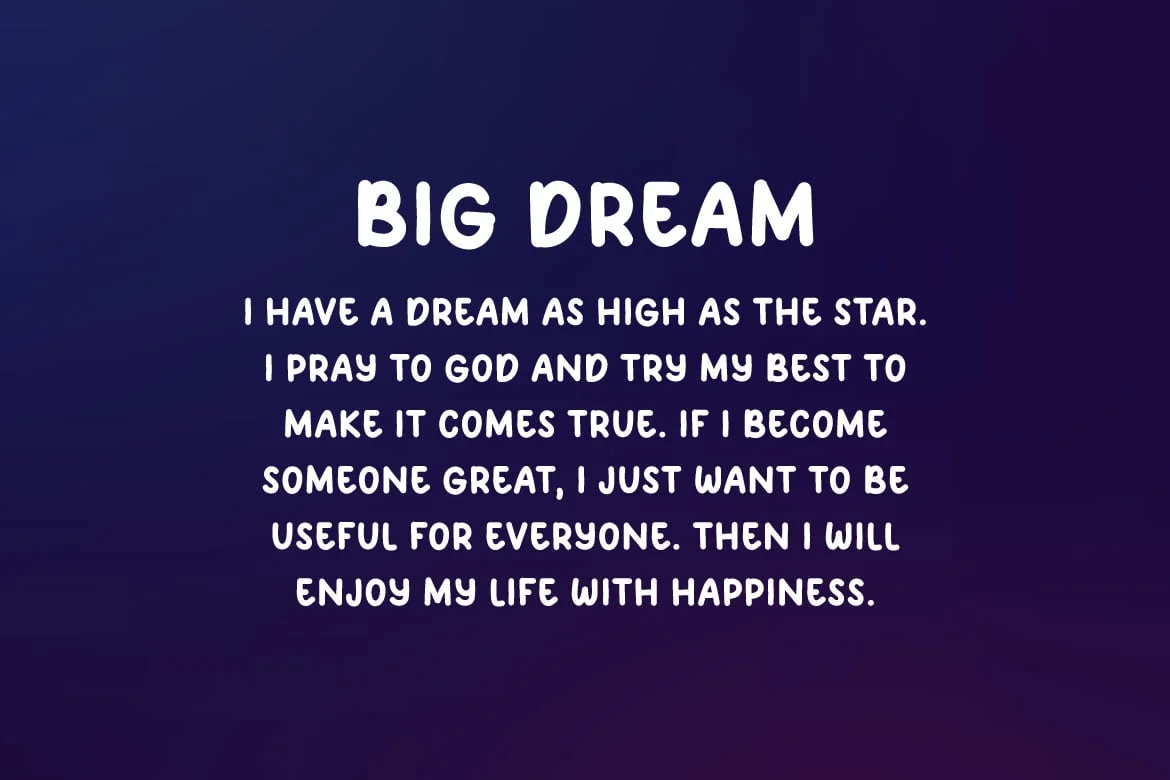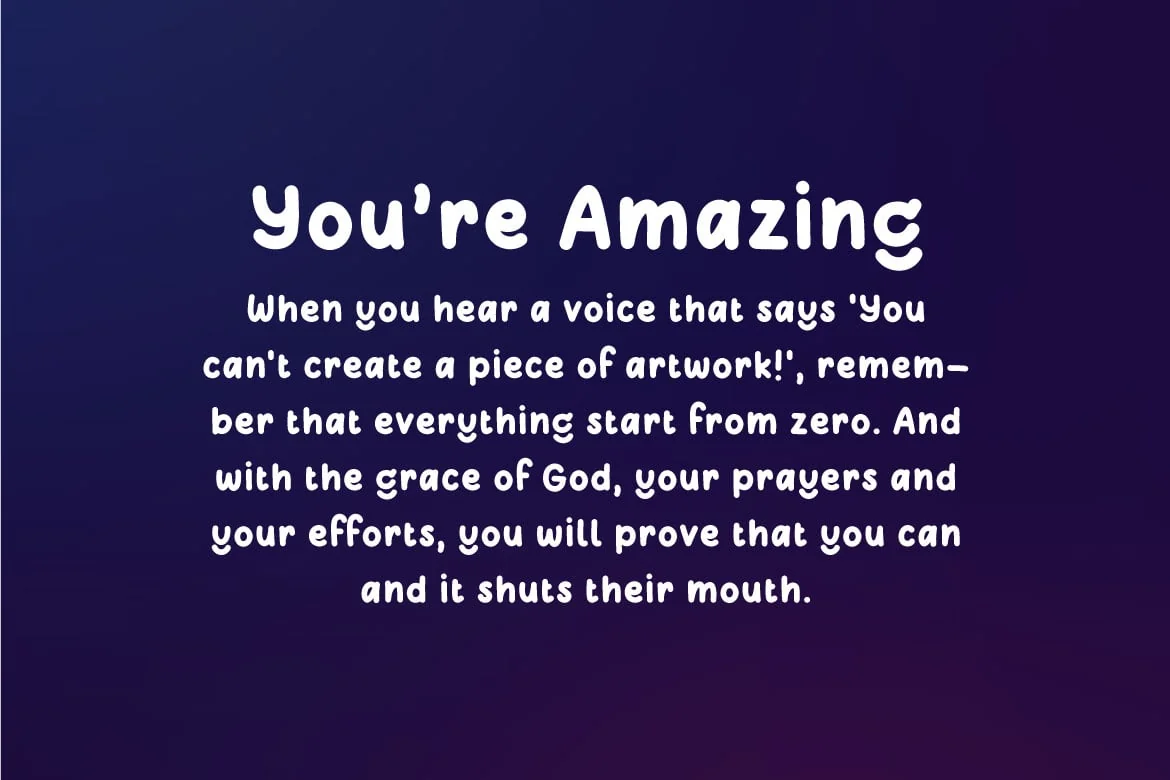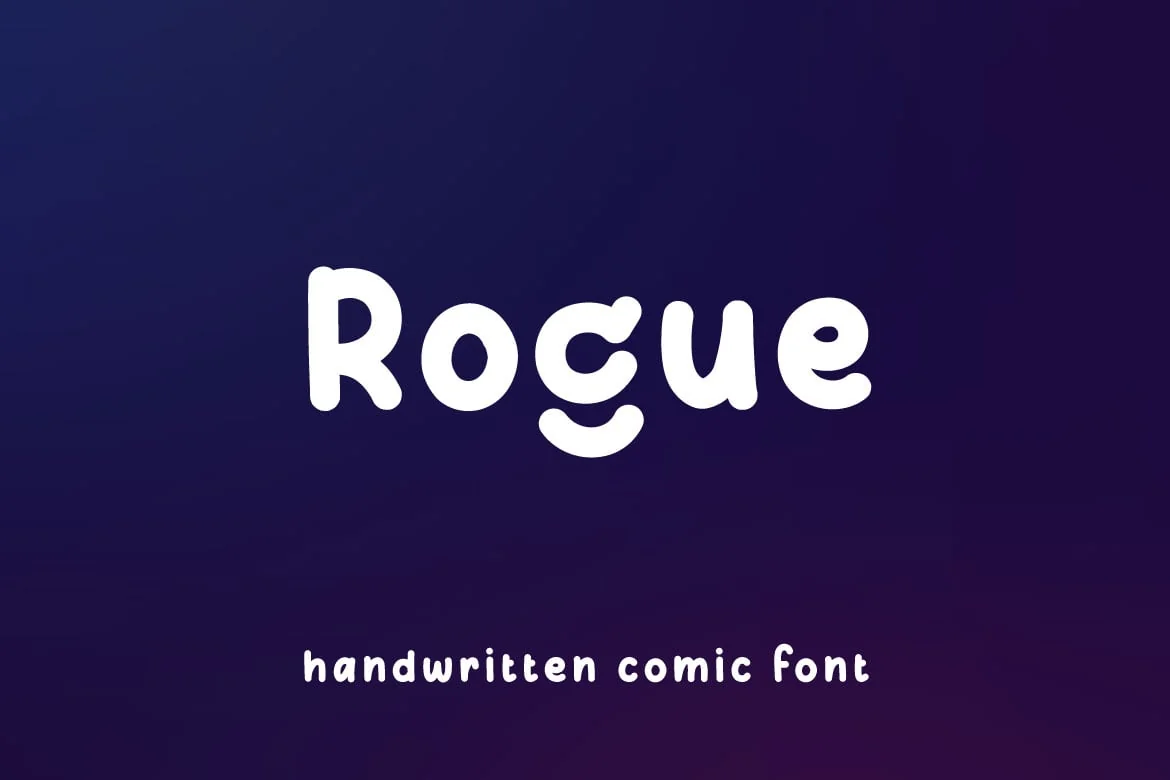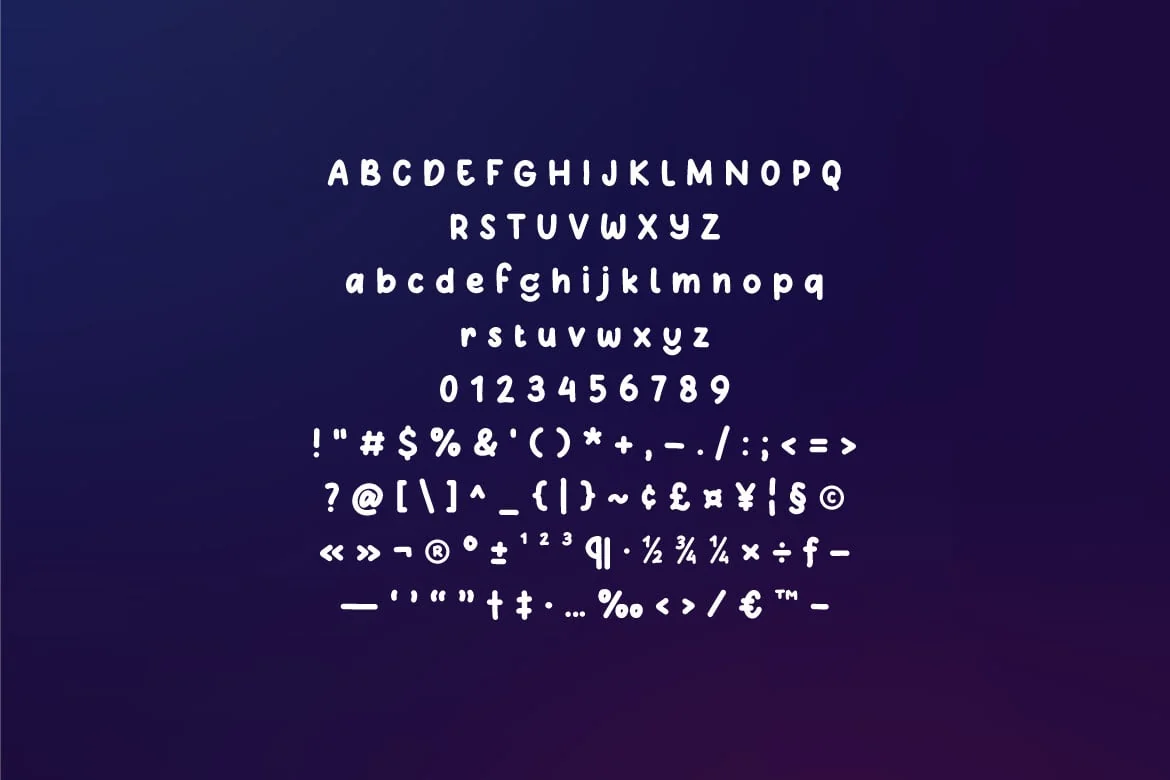
Rogue – Decorative Comic Font
Hello! Rogue is a minimalist handwritten comic font.
Rogue can be used in any works such as comic book, poster, school, flyer, book title, advertisement, social media content, logo and many more.